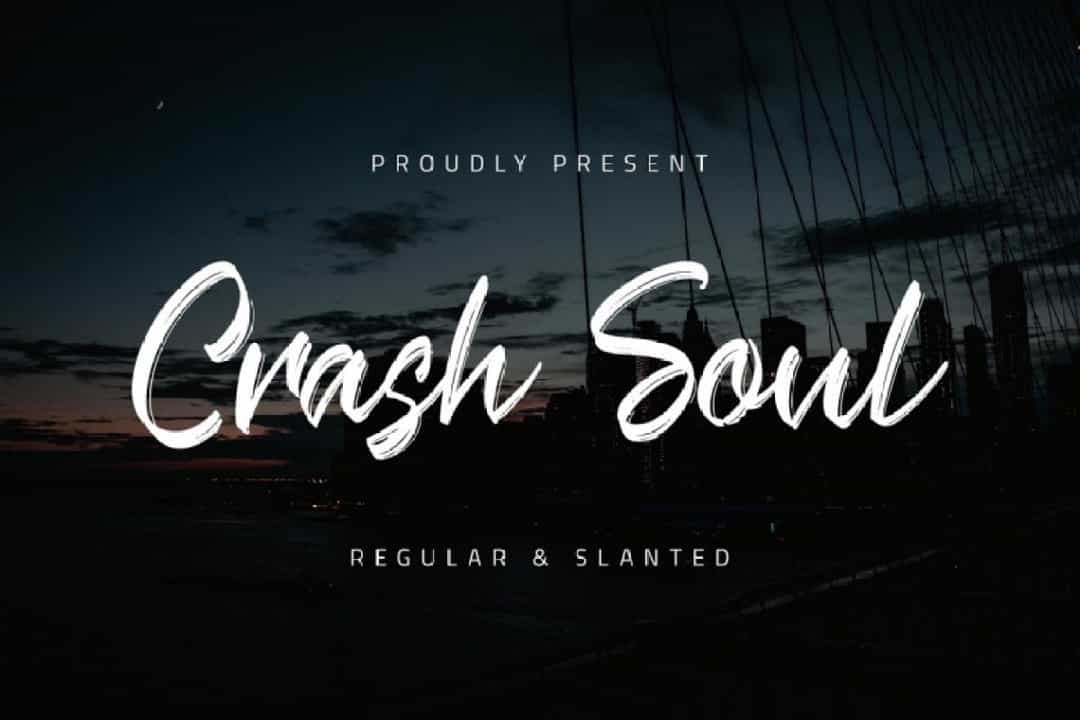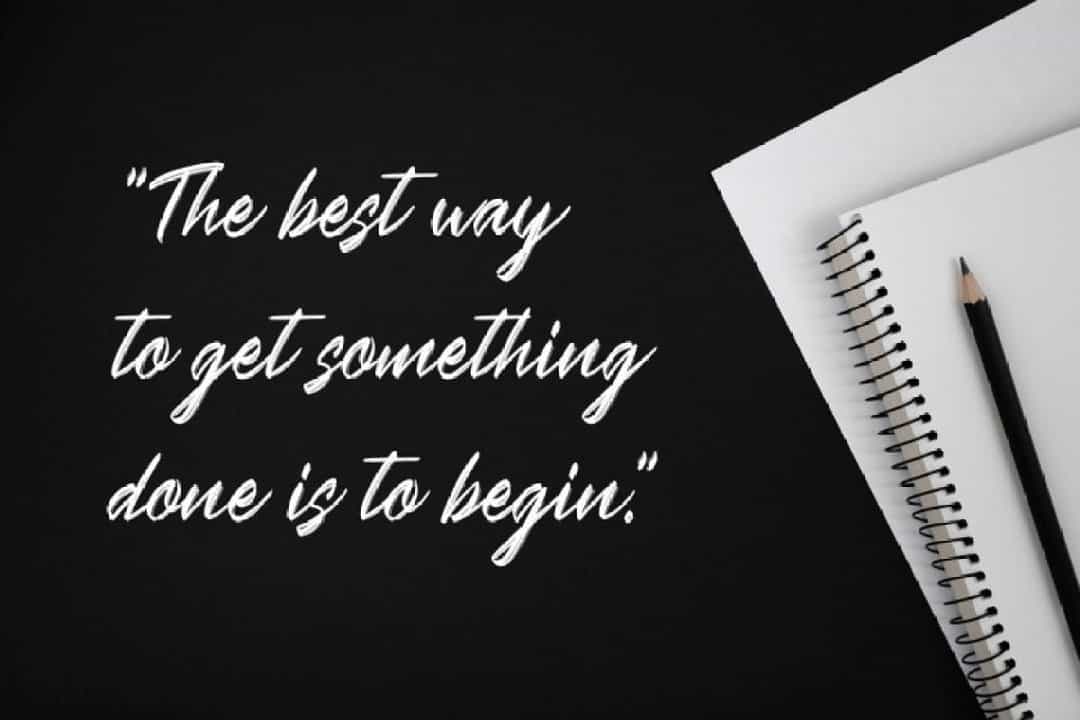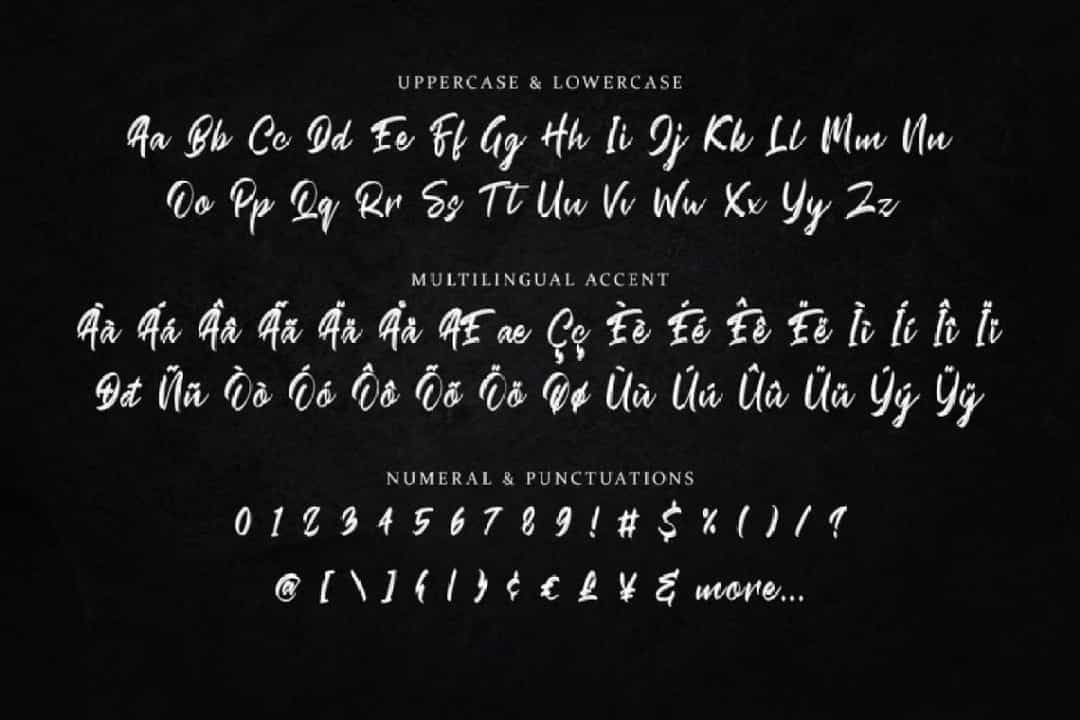
The introduction of Crash Soul – is a script font that is written in a casual and quick manner. The letters are drawn using brush strokes on a piece of paper. They are then scanned and meticulously sketched into vector format. This is the reason Crash Soul has charming, authentic and relaxed character. It gives a more natural appearance to your text, giving it an overall more natural appearance of your content. It is possible to activate the Ligature Open Type panel to create the two styles.